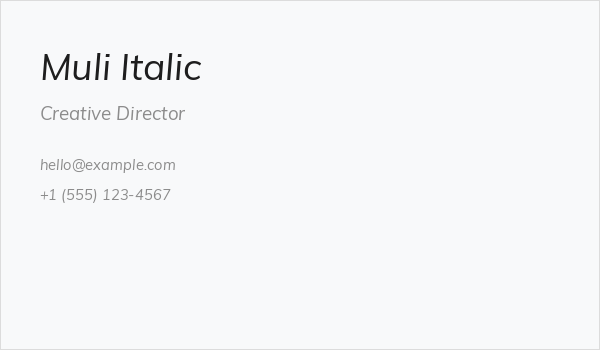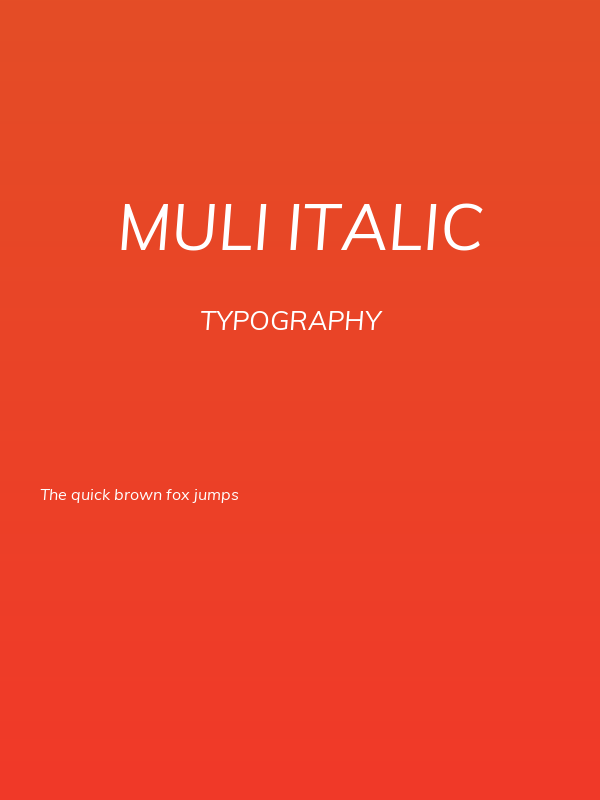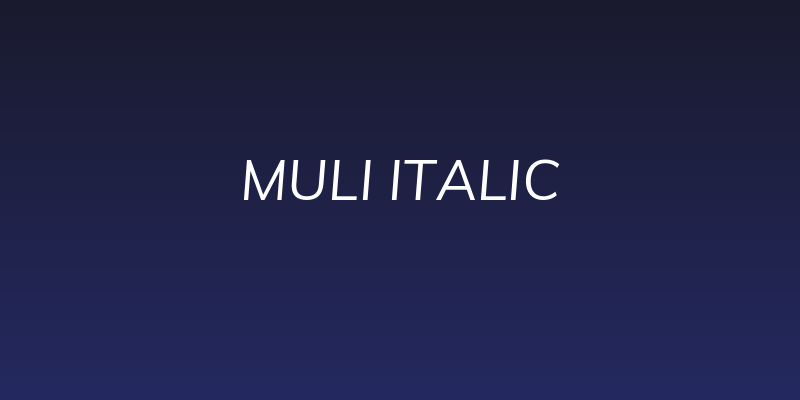
Muli Italic Font
Muli Italic Description
This font features a clean and modern sans-serif design with a slight italic slant, giving it a dynamic and contemporary feel. The characters are well-proportioned with a consistent stroke width, contributing to its readability. The uppercase letters are slightly taller than the lowercase, maintaining a balanced appearance. The numerals are clear and distinct, making them suitable for various applications. Special characters are designed to complement the overall style, ensuring versatility in usage.
| Proposed Projects | Ideal for digital interfaces, branding, advertising, and editorial design where a modern and clean aesthetic is desired. |